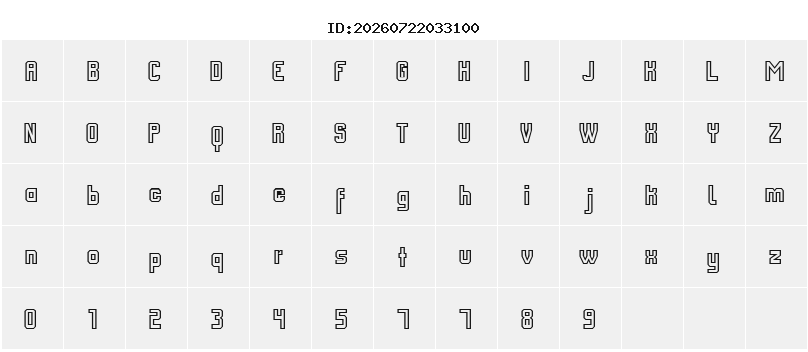
• Font Name: FM College Team outline
About FM College Team outline.ttf
FM College Team outline.ttf is a modern, elegant sans-serif font designed for ultimate readability and visual harmony. Perfect for branding, headlines, web design, and print materials.